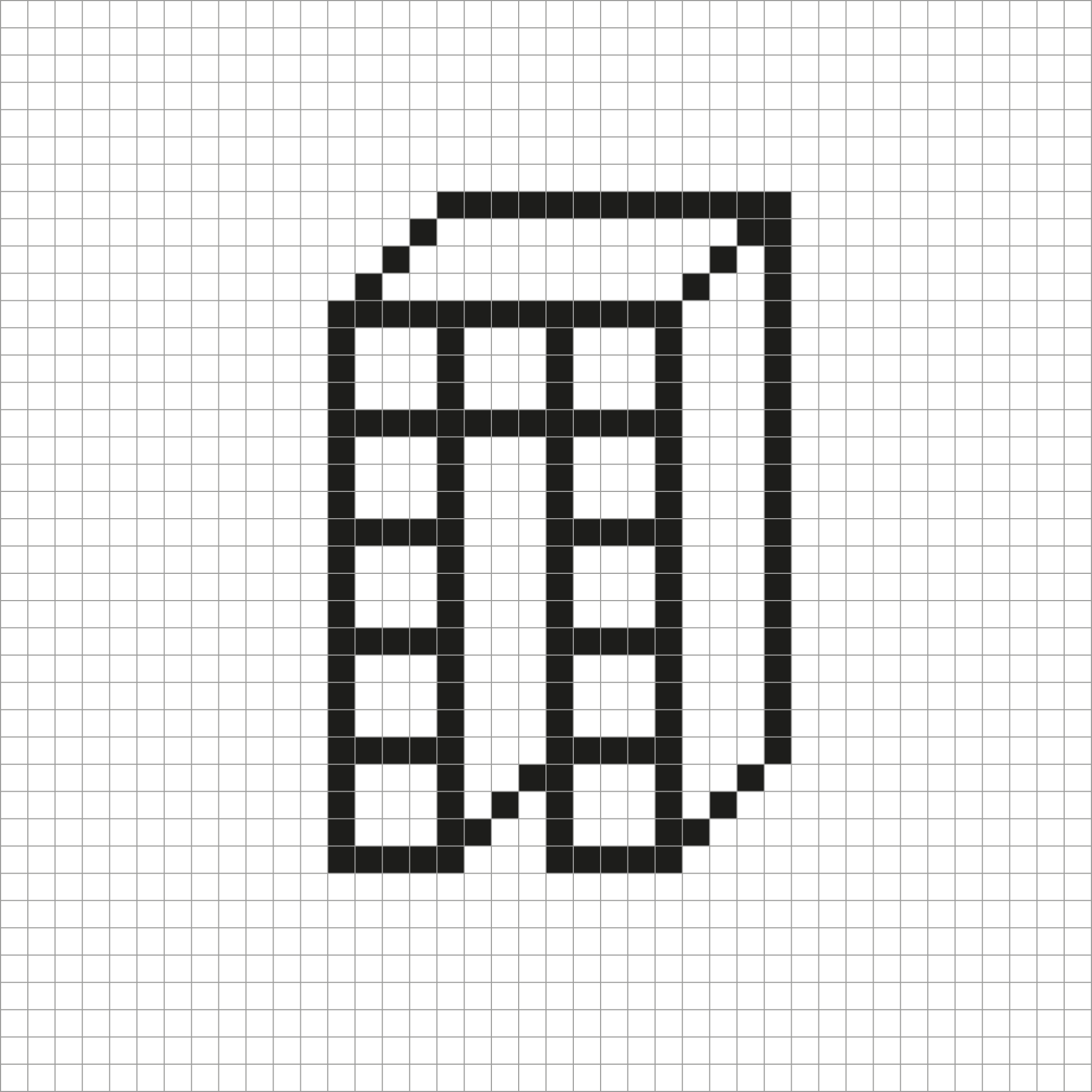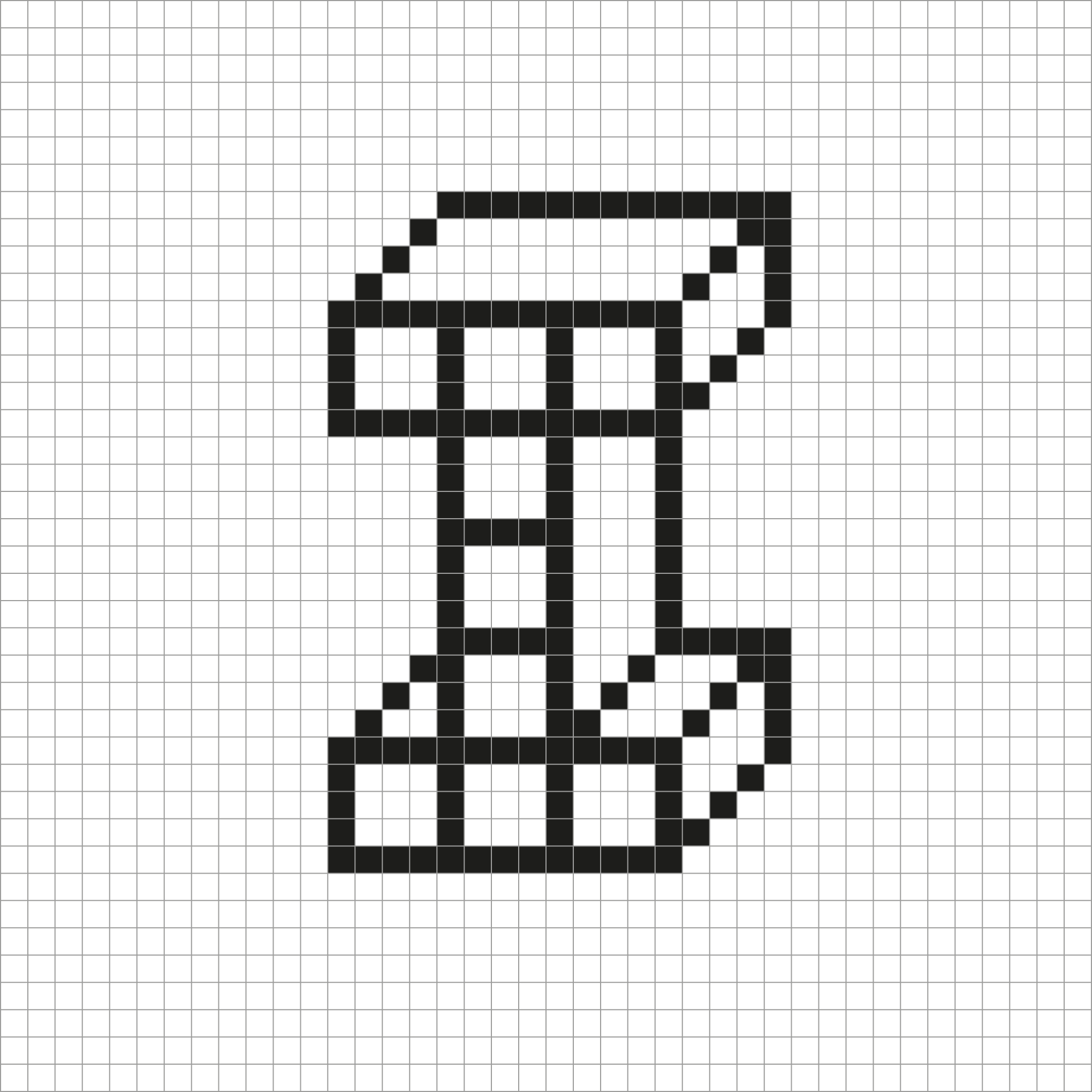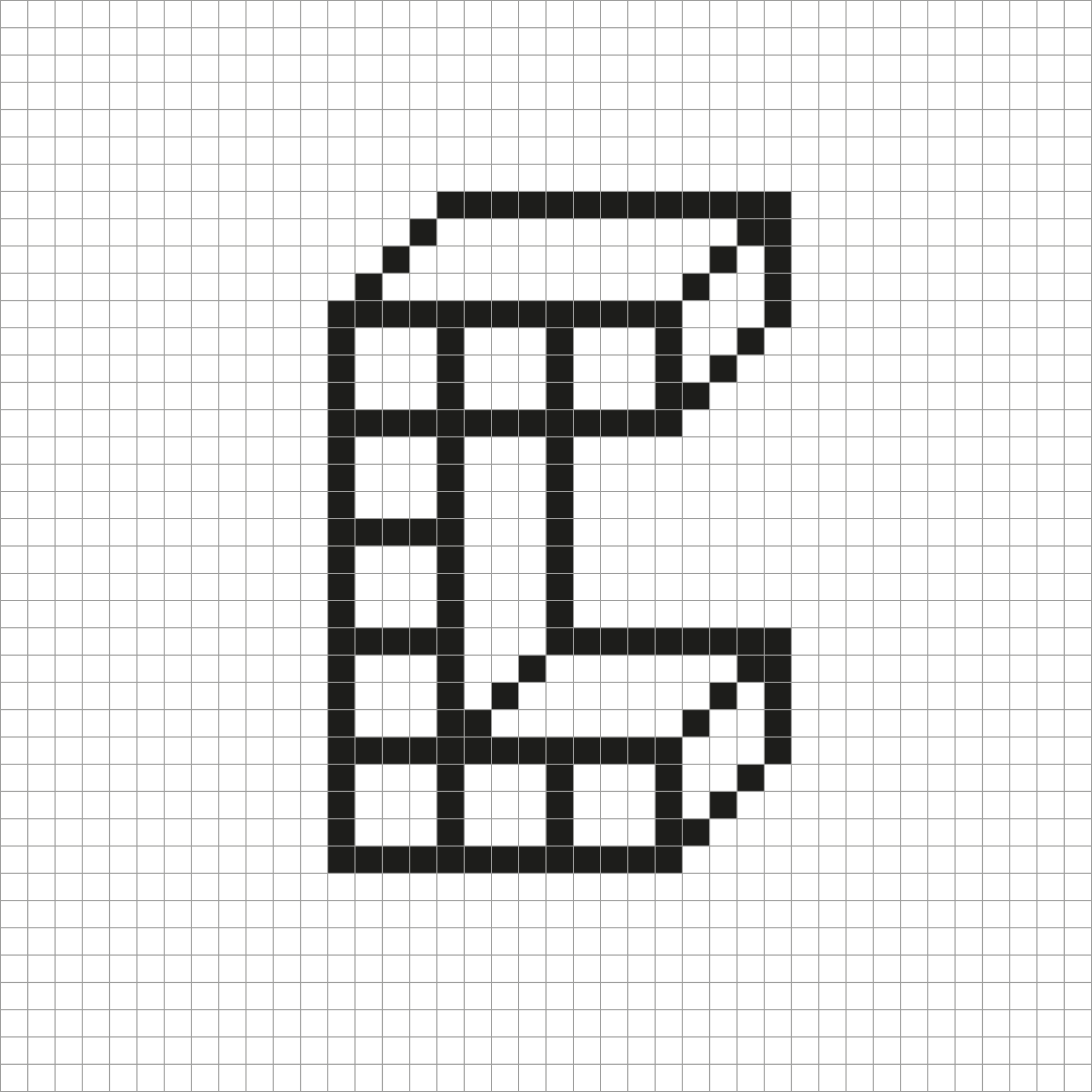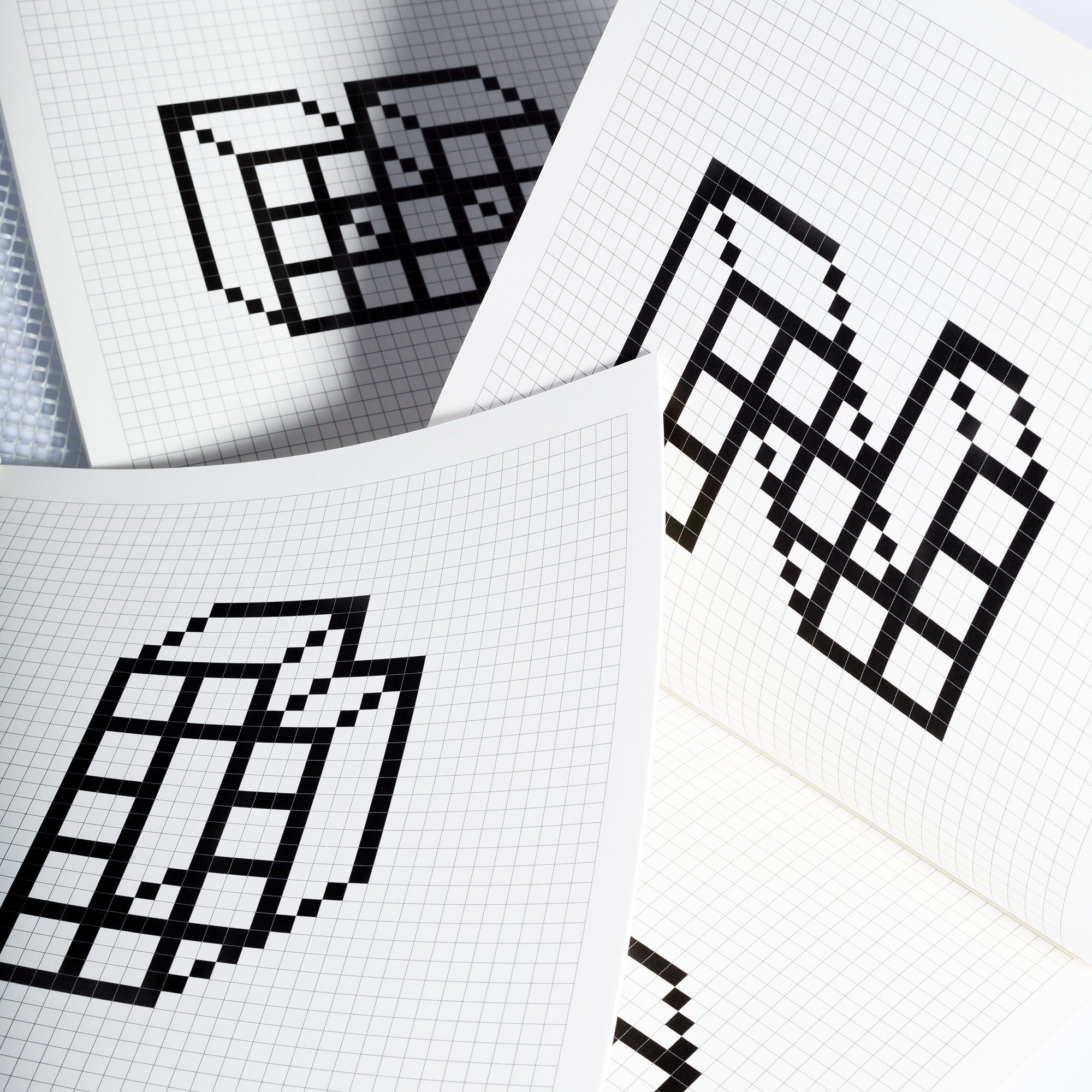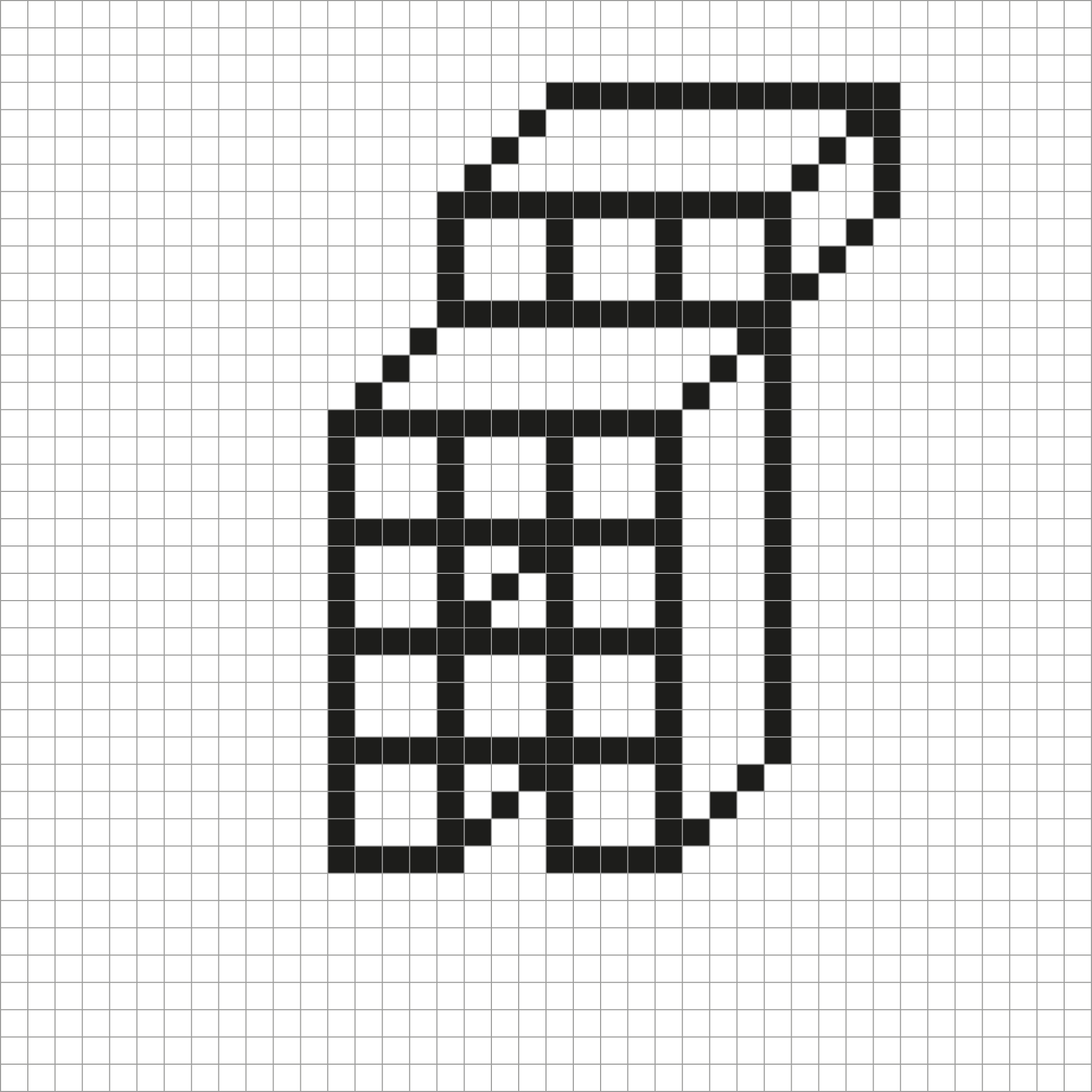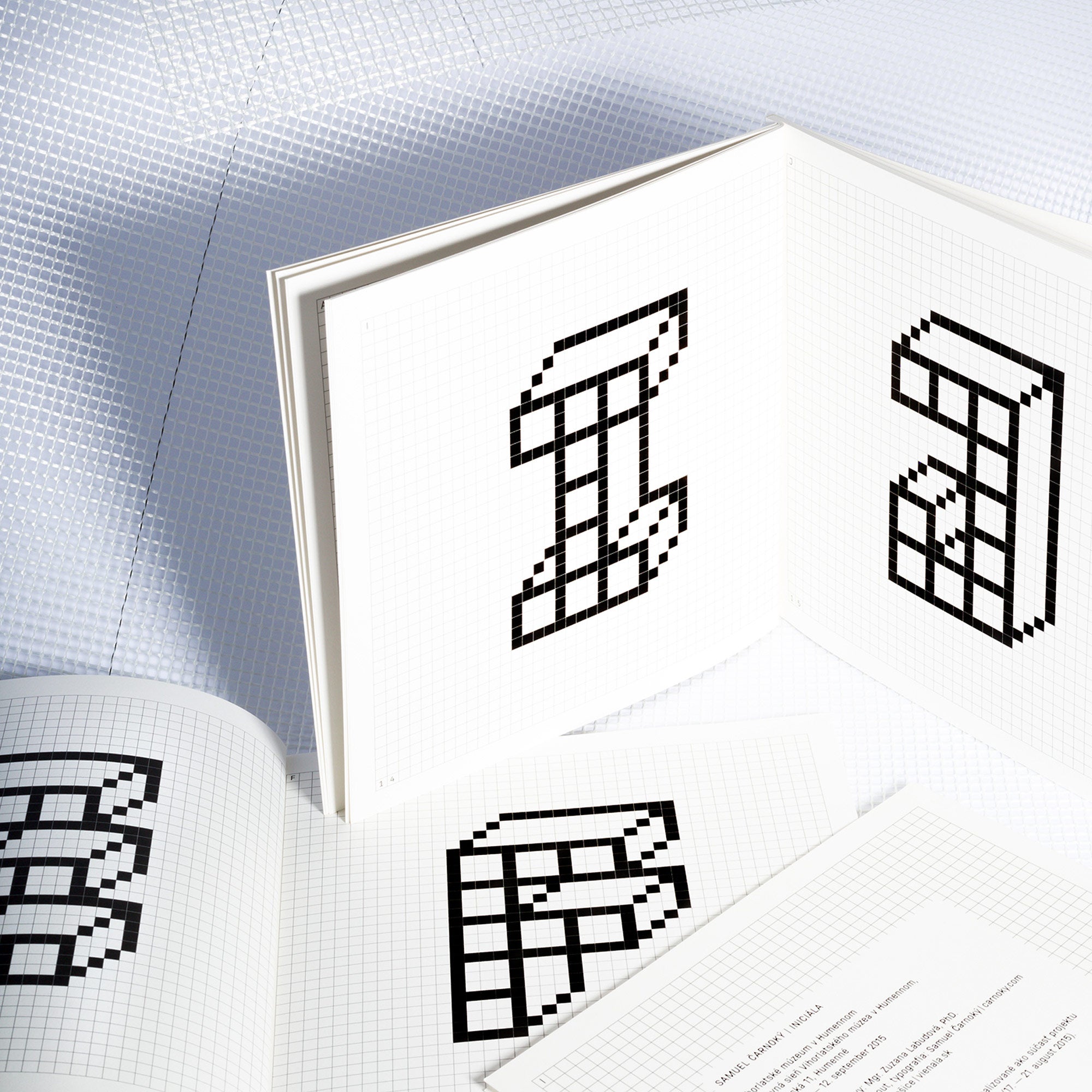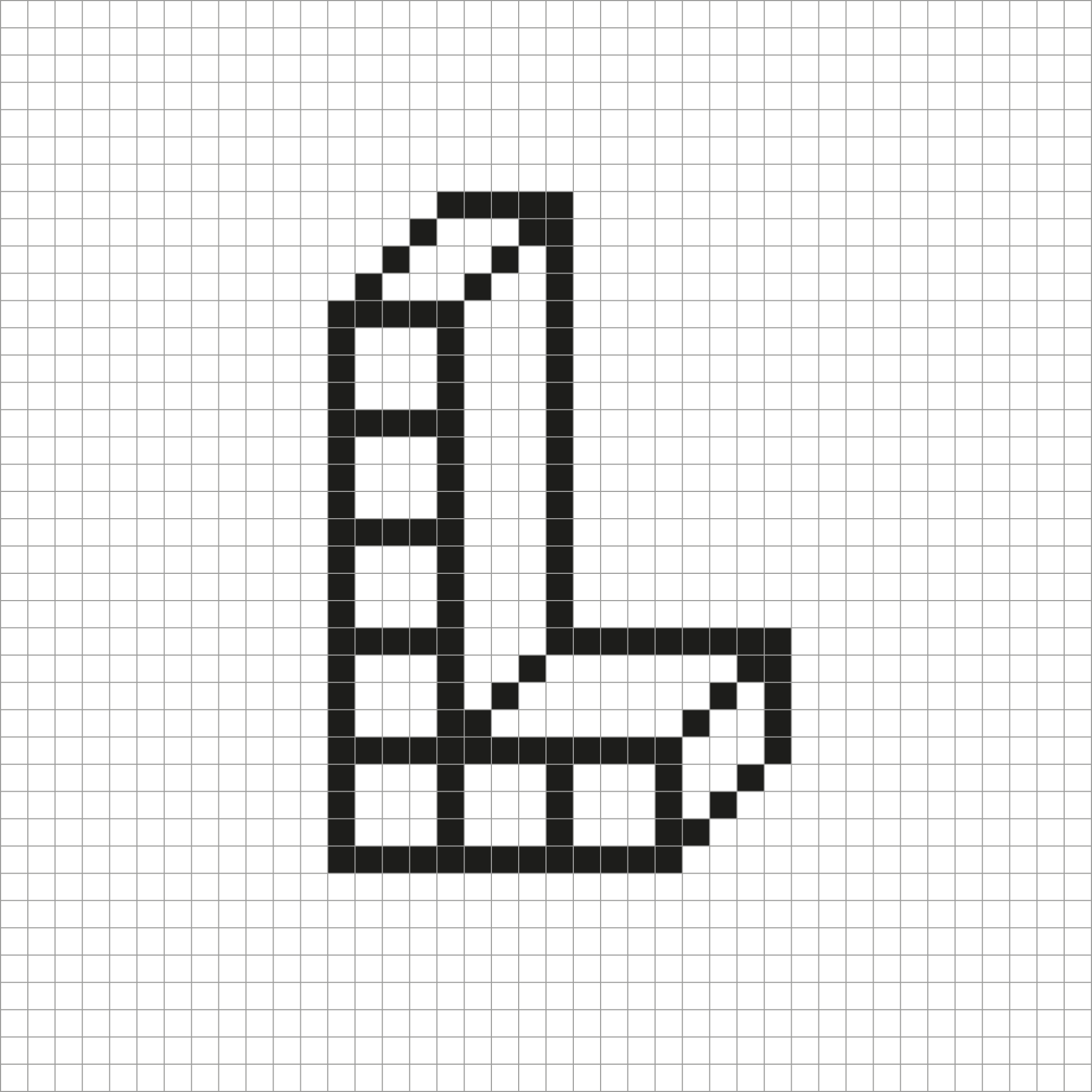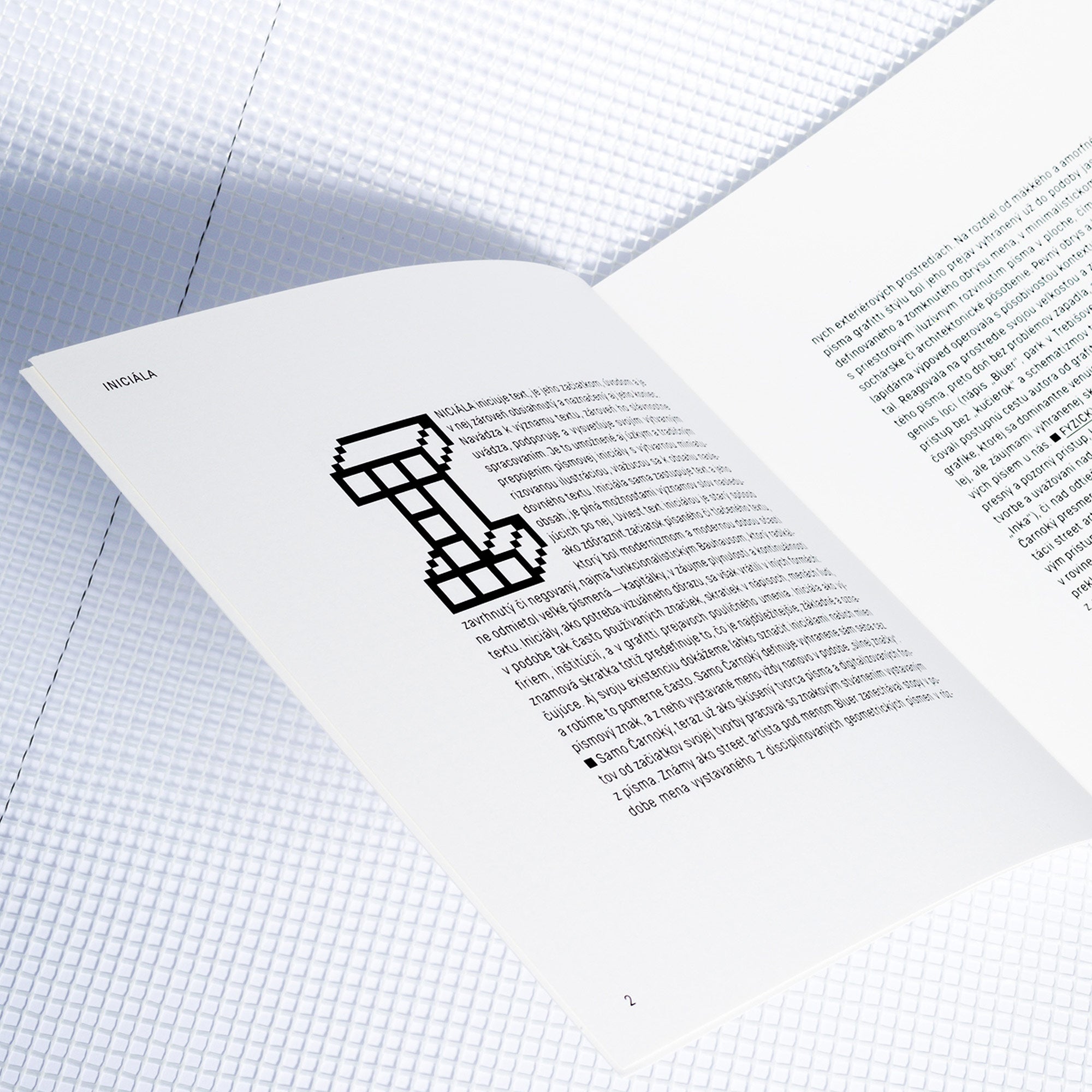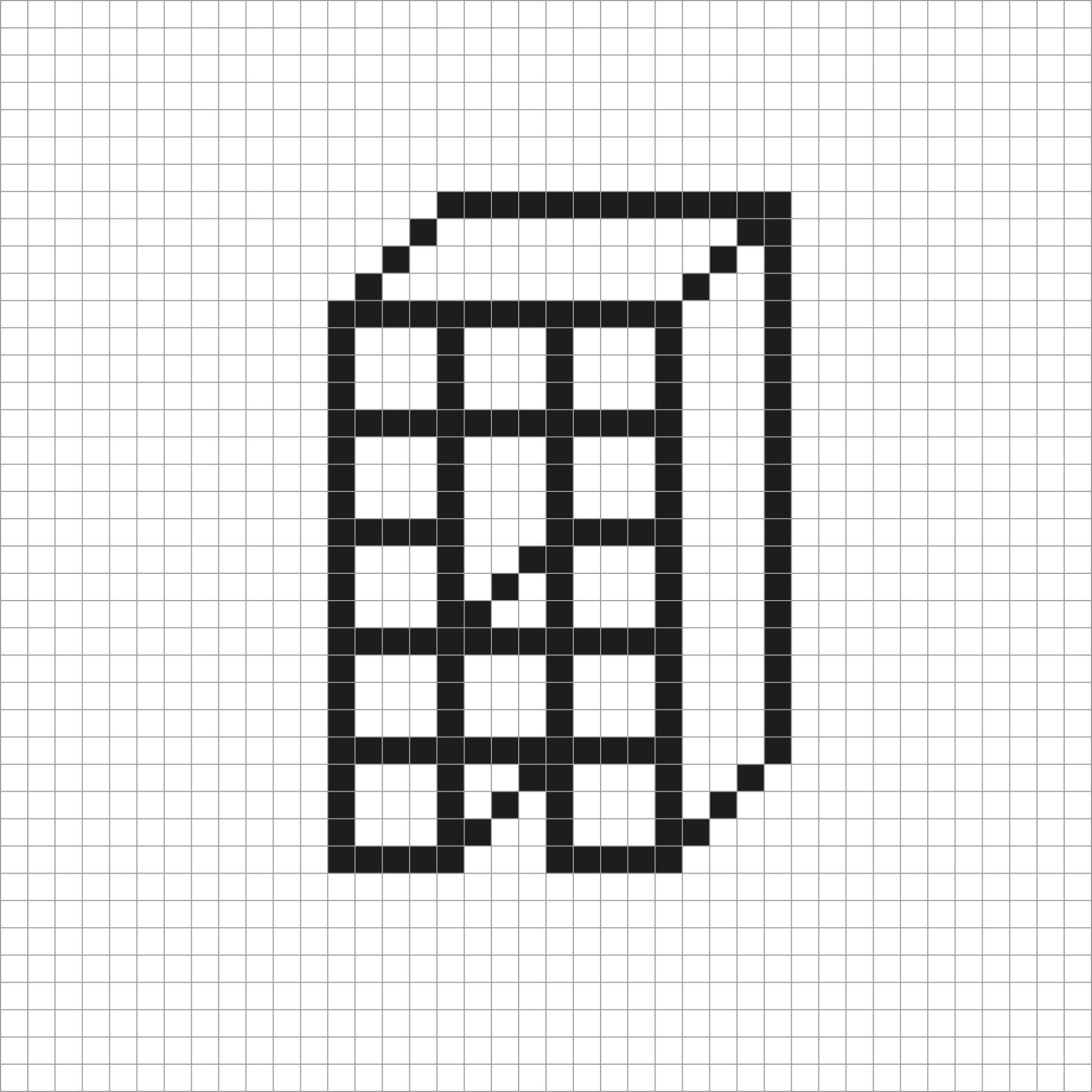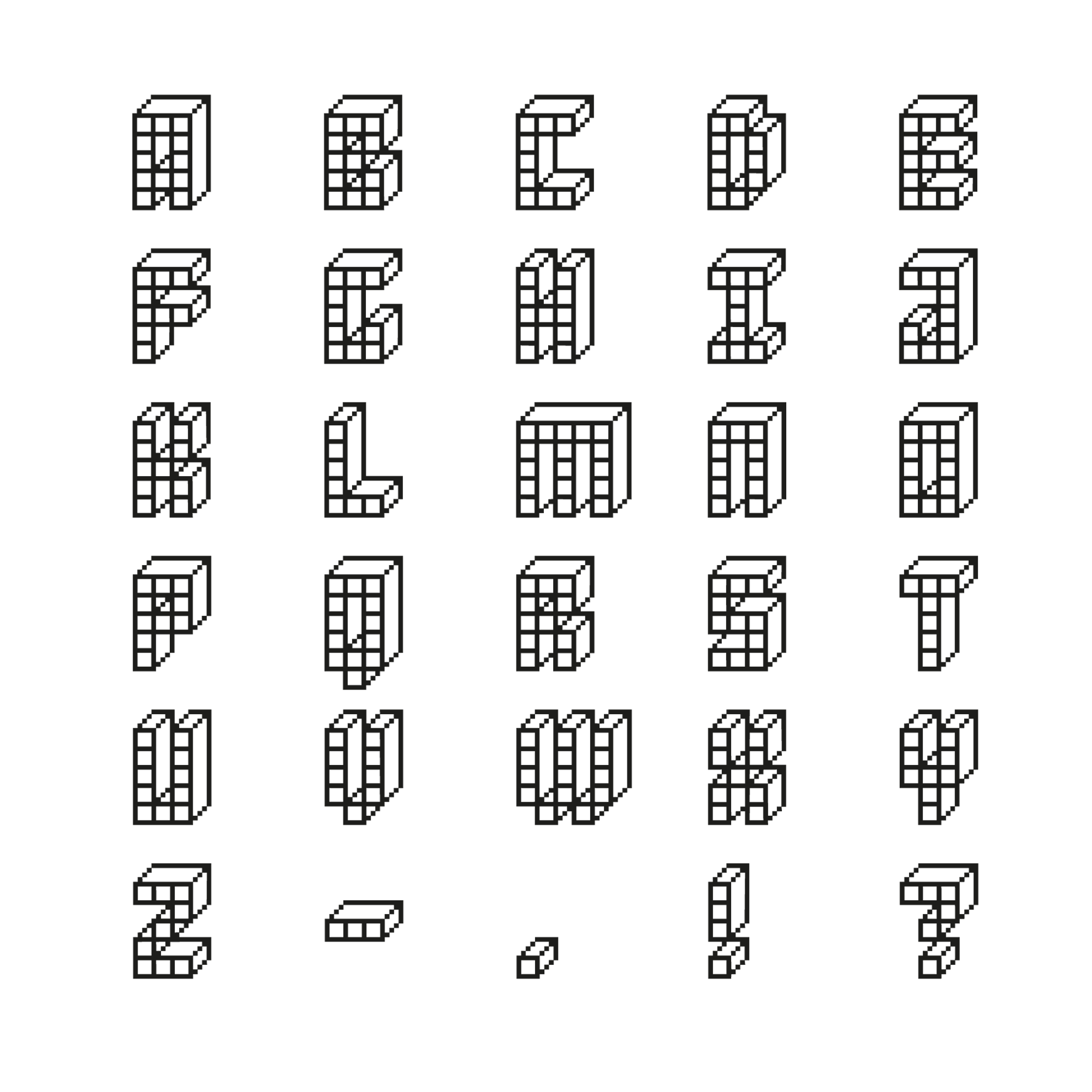
Iniciala
At the beginning, there is the Initial... A digital display typeface and custom font, made specifically for the exhibition of the same name — Iniciála (Initial) — a materialized typeface in the form of a site-specific installation. The shapes of letters consist of pixels weaved into a net, which resembles the wire mesh used for installing works of art in the space of a small art gallery. The typeface only consists of uppercase characters of the basic alphabet, and punctuation marks and diacritics used in the Slovak language. The font was used and presented in the catalogue accompanying the exhibition.